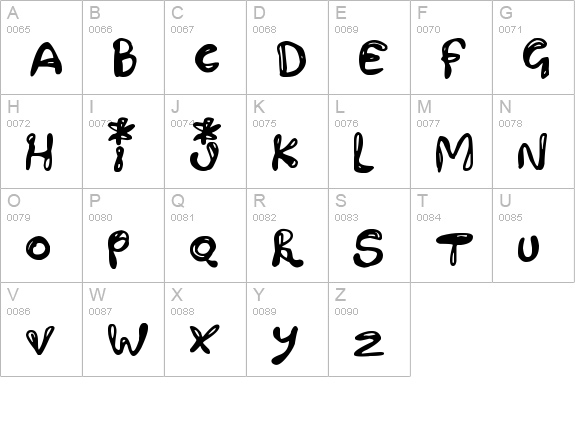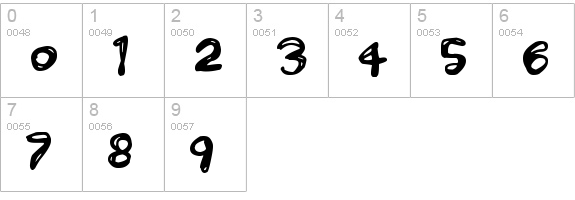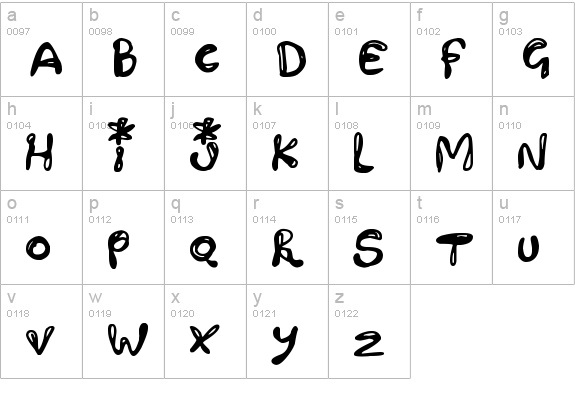
Paintling is a free for personal use font in the Script category, designed by Darrell Flood. It has been downloaded 20 times and is available for Windows, Mac and Linux.
Introducing Paintling font, a charming and whimsical typeface perfect for adding a touch of creativity to your designs. With its playful strokes and unique personality, Paintling font is sure to make your projects stand out. This delightful font is free to download at FontsMarket.com, making it accessible to all designers looking to add a fun and artistic flair to their work. Let Paintling font inspire your creativity and bring a splash of color to your designs!